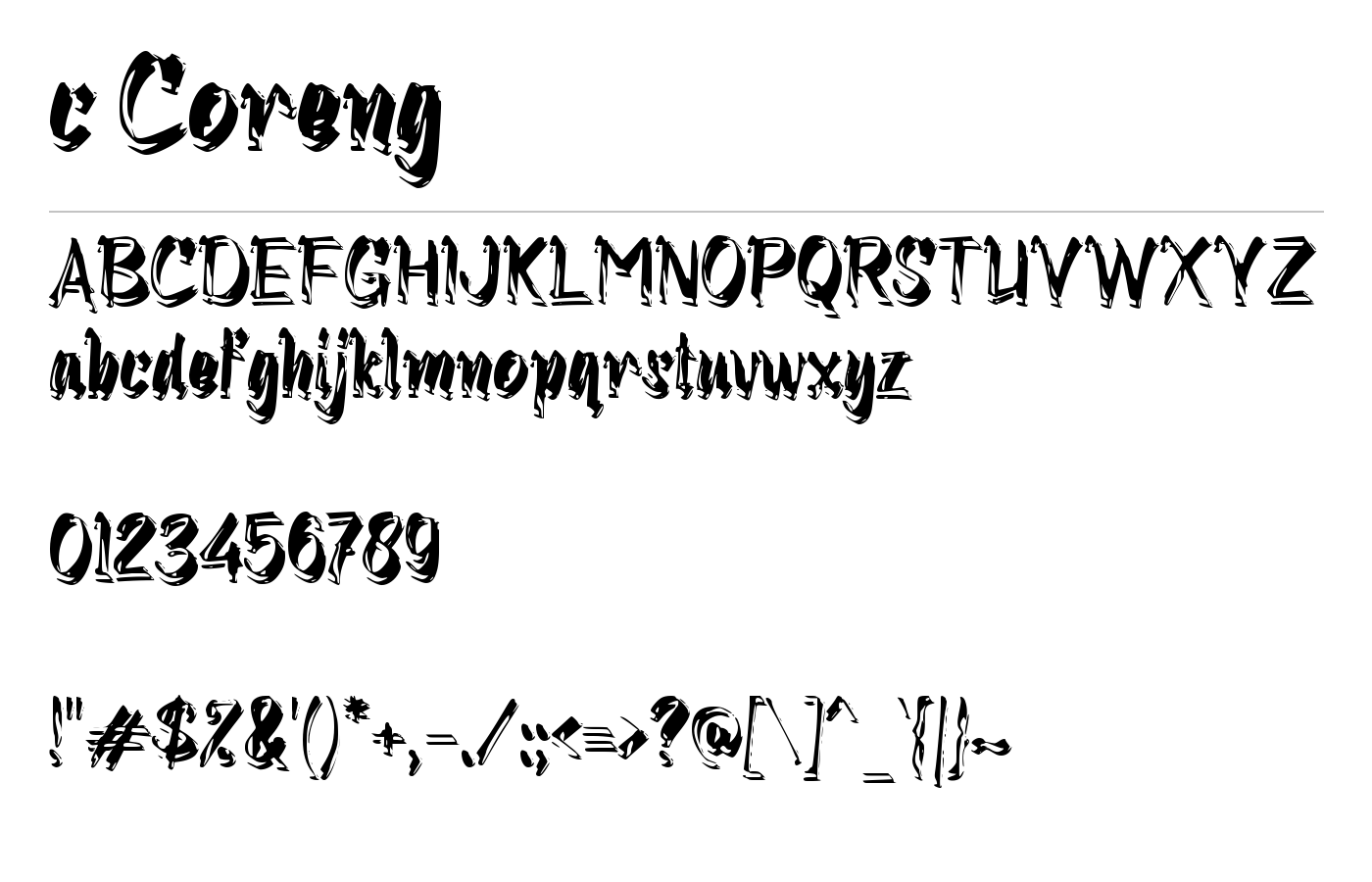
c Coreng is a bold, artistic display font with a textured, brushstroke effect that gives it a dynamic and edgy personality. Its irregular, sharp letterforms and high contrast strokes make it ideal for creative and informal designs that seek to stand out, such as posters, branding for entertainment or streetwear, and eye-catching headlines. This font works best in contexts where a strong, energetic visual impact is desired rather than for body text or formal uses.
c Coreng Font
About c Coreng Font